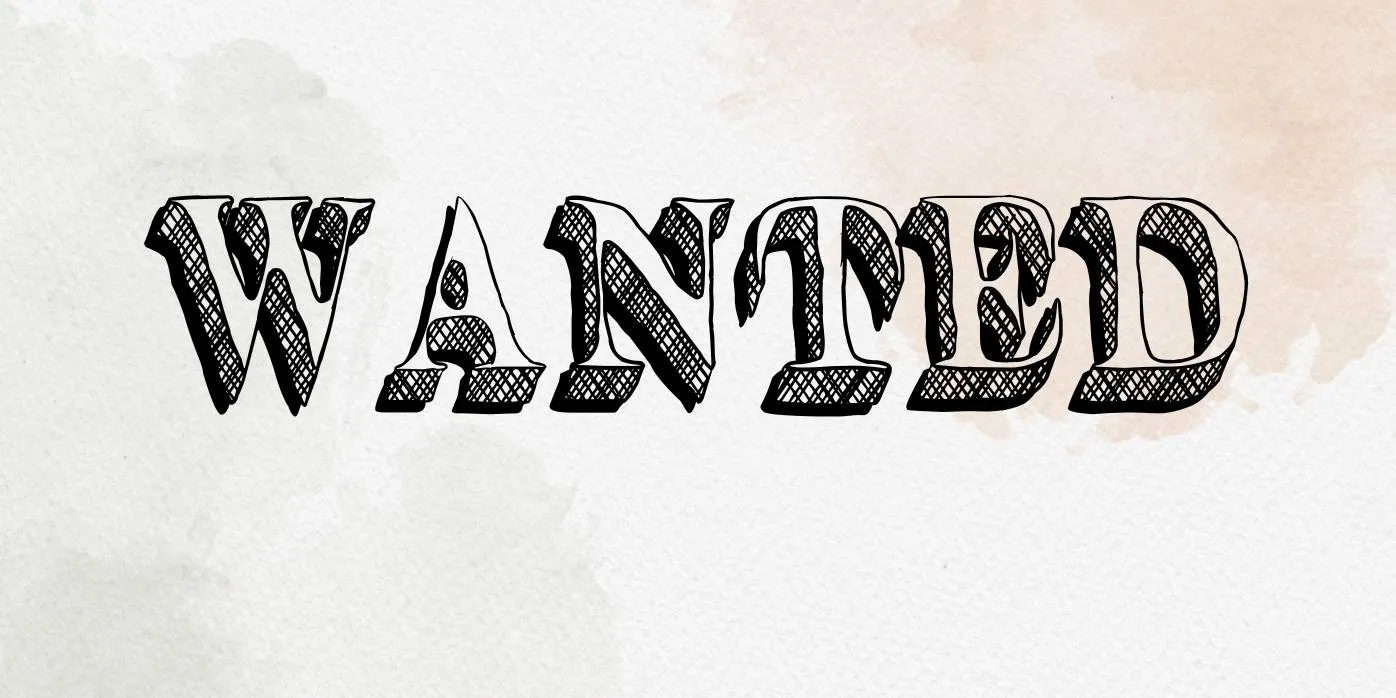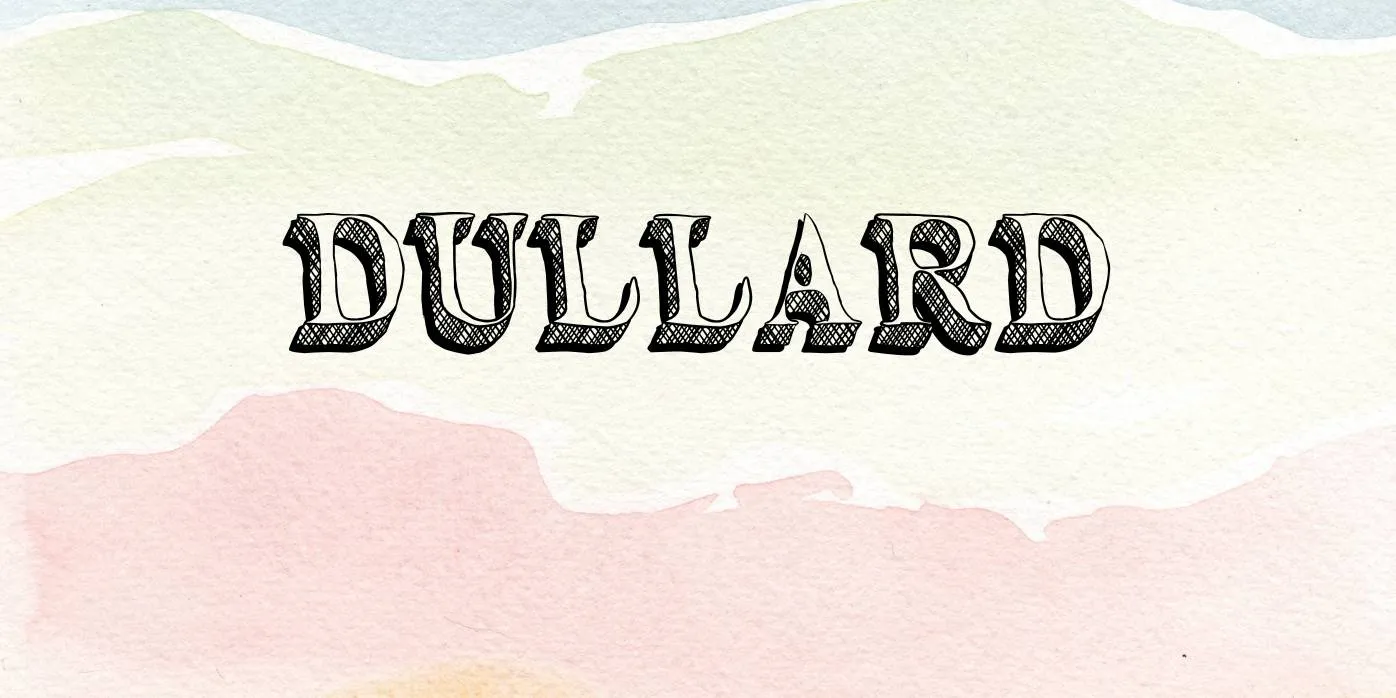
Dullard Font
Today we are presenting a typeface that has 3d pattern texture appearance named Dullard Font. This font belongs to the Fancy font family. Tioem was the designer for this typeface. The character of this font has a fantastic texture appearance that is utilized in various types of projects and designs.
This typeface is designed in regular style with 109 defined characters and 68 amazing glyphs. This regular style is designed with all-caps letters, numbers, and punctuation marks. It can support 12 languages which makes it quite impressive. There are so many fonts similar to this typeface.